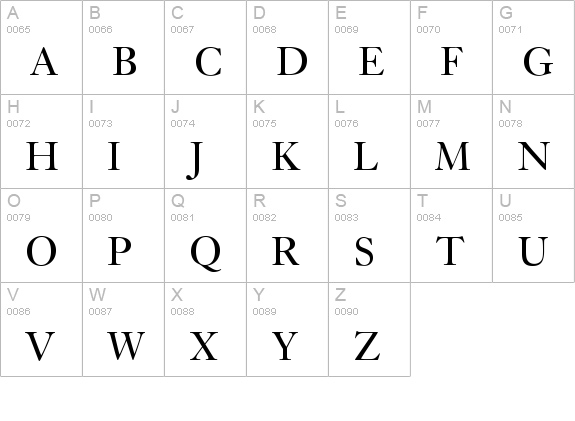
Kis font is a stunning and versatile typeface that will add a touch of elegance and sophistication to any design project. With its clean lines and classic yet modern design, Kis font is perfect for branding, advertising, logos, invitations, and more. But what sets Kis font apart is not just its beauty, but also the fact that it is completely free! Yes, you read that right – this exceptional font is freely available to download at FontsMarket.com. It's a font that combines both style and accessibility, making it a must-have for designers, creatives, and anyone in need of a high-quality typeface. Whether you're a professional designer looking to enhance your portfolio or a DIY enthusiast working on a personal project, Kis font is the perfect choice. Its wide range of weights and styles allows for endless possibilities, ensuring that you have the flexibility to create stunning designs that truly stand out. With Kis font, you can effortlessly convey a sense of professionalism and sophistication. Its crisp and legible characters make it easy to read, while its stylish curves and unique details add a touch of personality and flair. From elegant headlines to refined body text, Kis font will elevate your designs to a whole new level. So why wait? Take advantage of this incredible opportunity to enhance your design arsenal with Kis font. Don't miss out on the chance to download this exceptional typeface for free at FontsMarket.com. Start creating beautiful and impactful designs today with Kis font – the perfect blend of style, versatility, and accessibility.